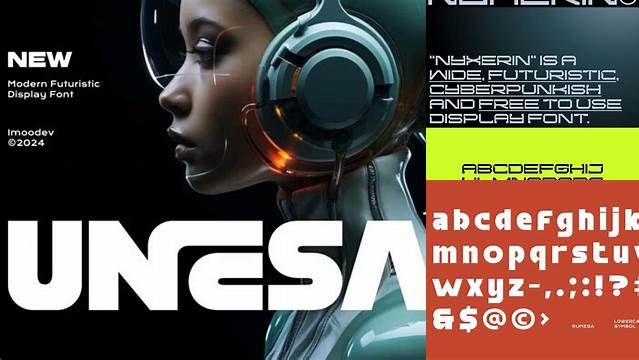
Free UNESA Futuristic Font Download: Your Design Guide
Hey guys! Are you on the hunt for a font that screams futuristic, modern, and maybe even a little bit sci-fi? Well, look no further, because you've stumbled upon the ultimate guide to the UNESA Futuristic Font! And the best part? It's available for a free download! Buckle up, because we're diving deep into everything you need to know about this awesome font, how to grab it, and how to use it to make your designs pop. This guide will help you. From crafting a visually striking logo to designing a website that feels fresh and innovative, UNESA is a powerhouse of style. It's a font that's been carefully crafted to embody the sleek lines and cutting-edge aesthetics of the future. Its unique letterforms and digital look make it perfect for projects that need a touch of innovation. Imagine the impact of this font on your design, it's not just text, it's a statement. It is a bridge between what we see today and the visual possibilities of tomorrow. With the UNESA font, your creative toolkit will expand. Prepare to elevate your projects and showcase your designs with this distinctive font. This isn't just about a download; it's about embracing a new era of design. Get ready to transform your visions into reality.
Why UNESA? Exploring the Allure of Futuristic Fonts
So, why choose UNESA over the thousands of other fonts out there, you might ask? Let's break it down, shall we? First off, the aesthetic. Futuristic fonts like UNESA tap into a certain vibe that's all about innovation, technology, and the future. It's the kind of font that makes you think of sleek gadgets, cyberspace, and maybe even a cool spaceship or two. It is a visual representation of progress and innovation. It's perfect for projects that want to convey a forward-thinking message. It's not just about looking cool; it's about communicating a specific brand personality. It signals that the brand is at the forefront of trends. Furthermore, UNESA is designed to be legible and visually interesting. The designers behind UNESA have thought about making the font both easy to read and visually appealing. The goal is to create something that looks good without sacrificing usability. Whether you're working on a headline, a paragraph of text, or a logo, UNESA has you covered. Moreover, UNESA offers flexibility. Versatility allows you to tailor your design. It adapts seamlessly to various projects, from digital interfaces to print materials. It is designed to look good in many contexts. Whether you're designing a website, creating marketing materials, or making a presentation, UNESA is a great choice. UNESA stands out in a crowded font market. It's not just another typeface; it's a statement of style. It's about making an impact and making sure your brand is remembered. That means your designs have more visual impact.
Unleashing Creativity: Applications and Design Inspiration
Now, let's talk about where you can actually use this awesome font. UNESA is incredibly versatile, making it a fantastic choice for a wide range of design projects. Think about things like logos. A logo is the face of your brand, right? It is often the first thing people see. UNESA is perfect for creating a modern, tech-savvy logo that grabs attention. Website design is also ideal. A futuristic font like UNESA can give your website a cutting-edge look and feel. It’s perfect for tech companies, startups, or anyone wanting to create a modern online presence. Consider marketing materials such as posters, flyers, and social media graphics. UNESA can help you create eye-catching designs that stand out from the crowd. It's a surefire way to grab attention. Other areas, such as presentations and branding, are great to use. It helps reinforce a cohesive visual identity across all platforms. Finally, packaging and app design, where a unique font can elevate the user experience and create a memorable brand experience. The possibilities are endless. The key is to think about how you can use the font to enhance your message and captivate your audience. Think outside the box. UNESA isn't just a font; it's a tool that you can use to express your creativity and make a statement.